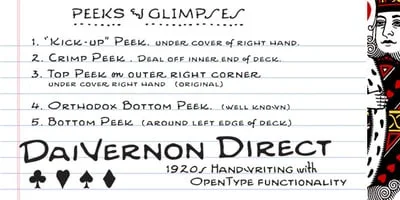
Dai Vernon Font
The Dai Vernon Font is a superb choice for projects that need a touch of classic, magical, and sophisticated style. Its elegant, handwritten aesthetic and unique flourishes make it perfect for creating a sense of wonder and old-world charm. This font is a great fit for branding for illusionists, vintage-themed events, and high-end artisanal products. Whether you're designing a logo for a magic show, a title for a historical documentary, or a poster for a speakeasy, the Dai Vernon Font adds a layer of theatrical elegance and mystery to any design, ensuring your work feels genuinely one-of-a-kind.
What makes this font so exciting is its exceptional ability to capture the essence of a bygone era while remaining perfectly readable for modern audiences. The Dai Vernon Font is designed with meticulous attention to detail, featuring beautiful ligatures and stylistic alternates that allow for a truly customized look. This makes it an ideal choice for creating unique logos and headlines that feel bespoke and personal. Despite its stylistic complexity, the font is crafted to maintain excellent legibility, ensuring your message is both beautiful and clear. It’s a typeface that works hard to combine the charm of a handwritten note with the professionalism of a high-quality design, making it a valuable asset for any creative project.
The Dai Vernon Font family often includes a variety of stylistic alternates and ligatures to give you more creative control. These features allow you to customize the look of your text, making it appear even more like authentic handwriting. You can connect different letters and create unique character combinations to avoid repetition and give your design a truly one-of-a-kind feel. The Dai Vernon Font is an excellent opportunity to explore these additional features and see how they can work together to create a cohesive and deeply personal brand identity.
By choosing the Dai Vernon Font, you're opting for a typeface that embodies grace, authenticity, and personal style. It’s a font that works tirelessly to not only convey information but also to create an intimate and memorable connection with your audience, ensuring your projects leave a lasting impression.